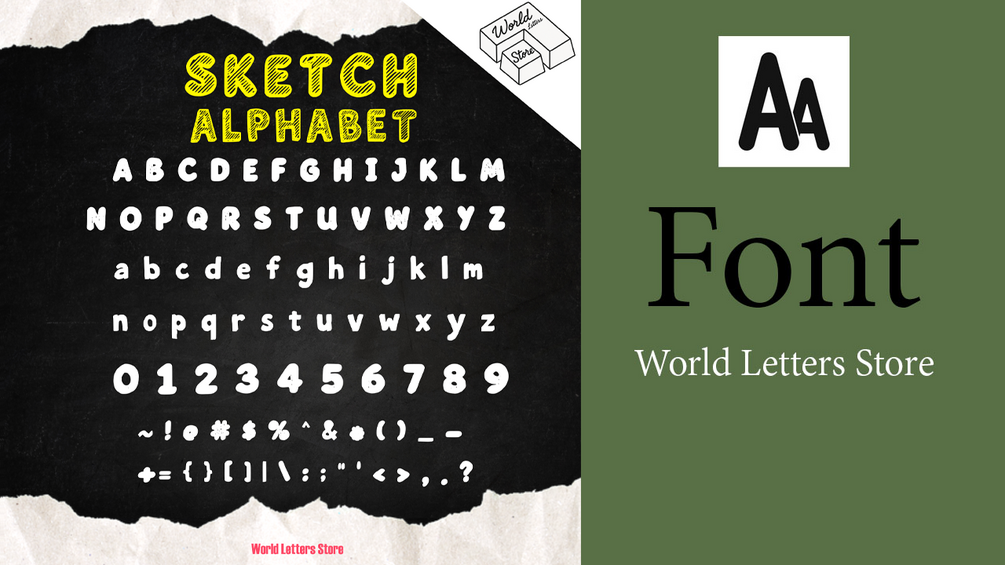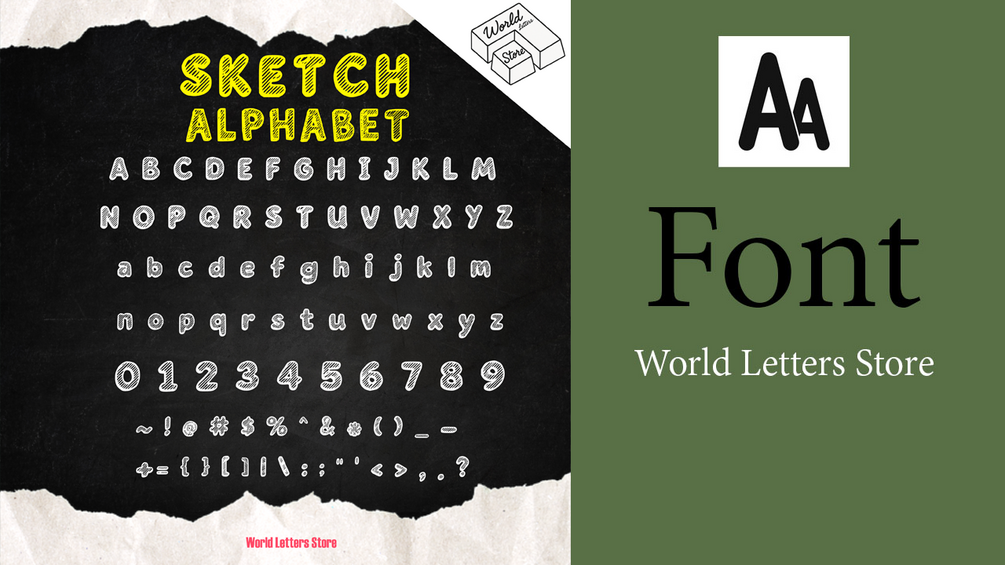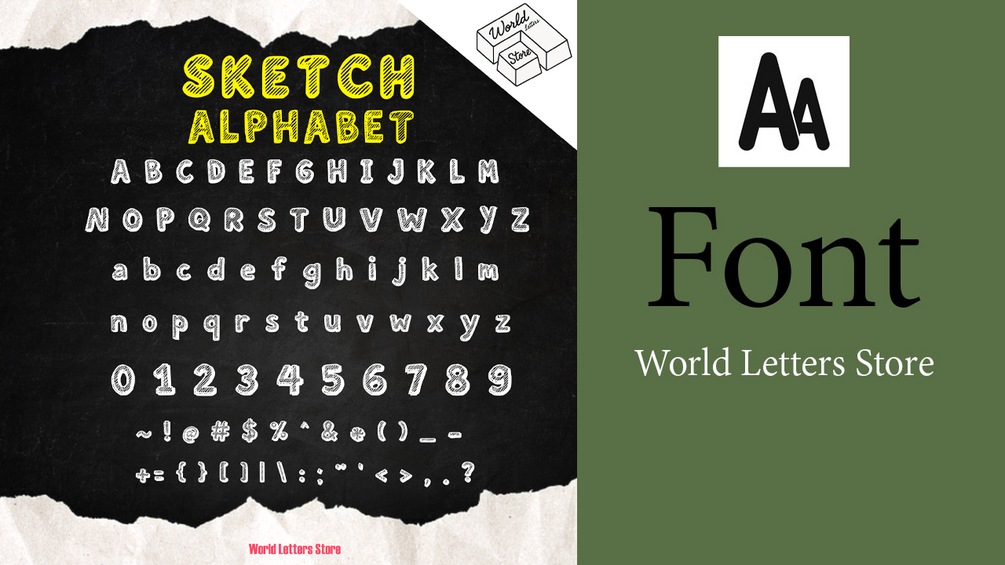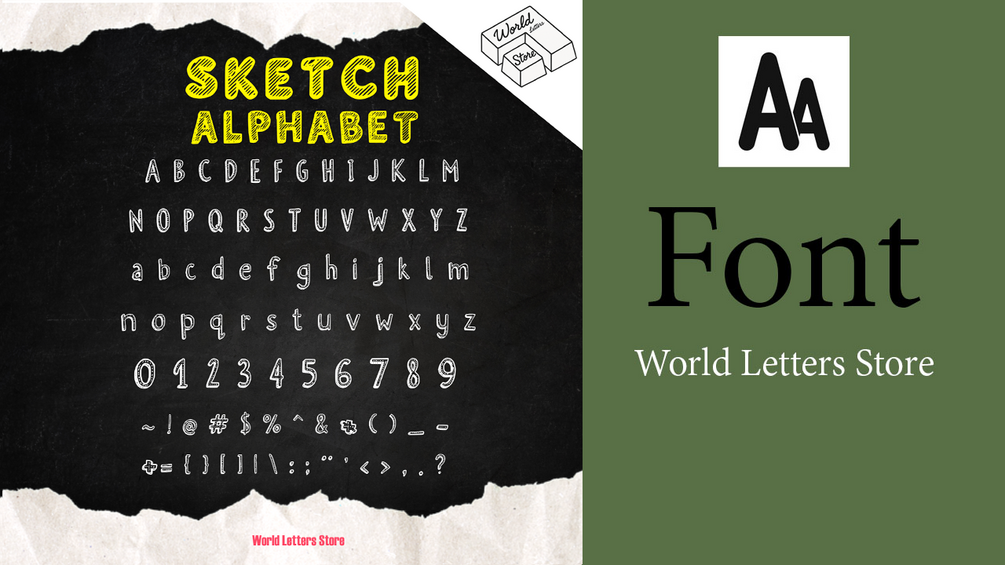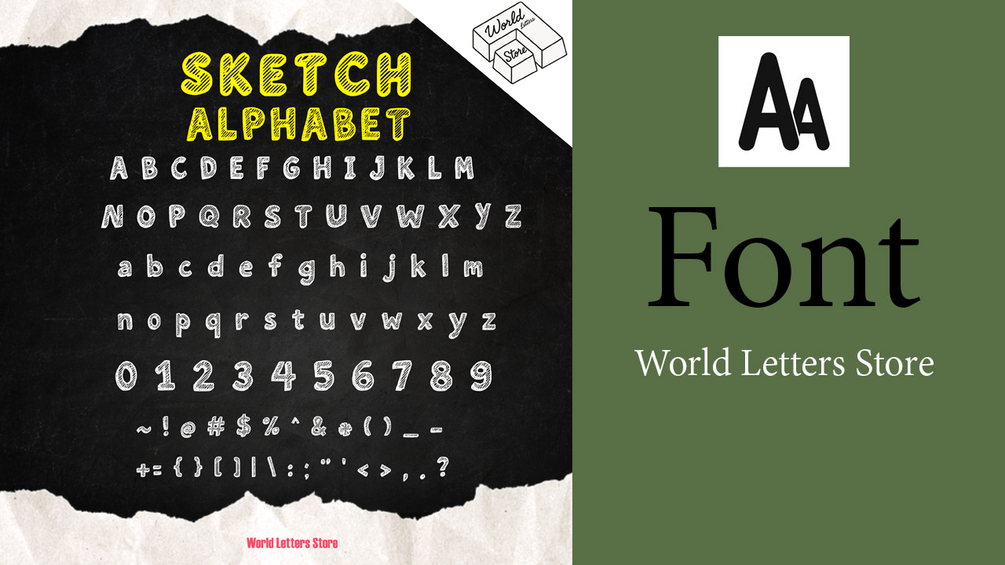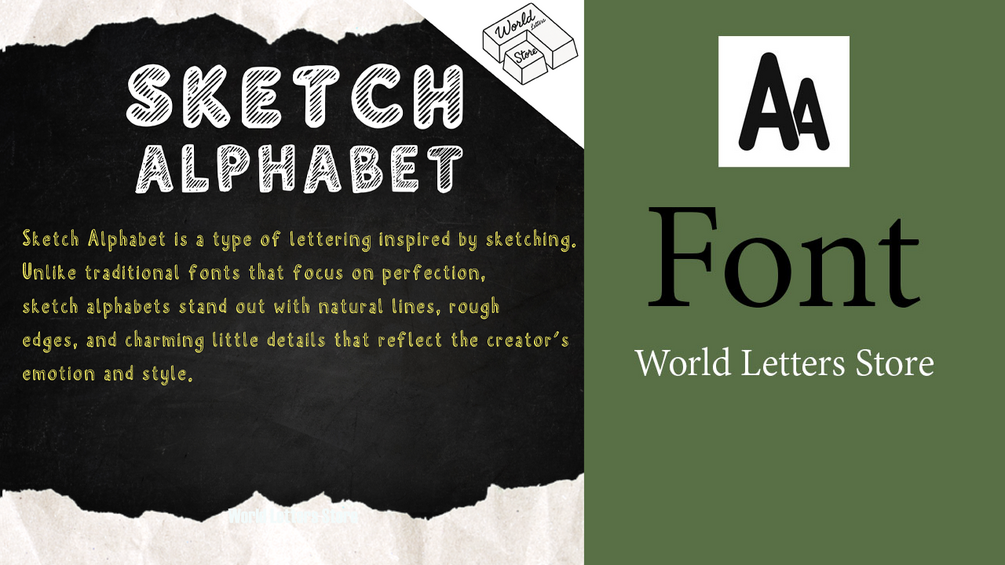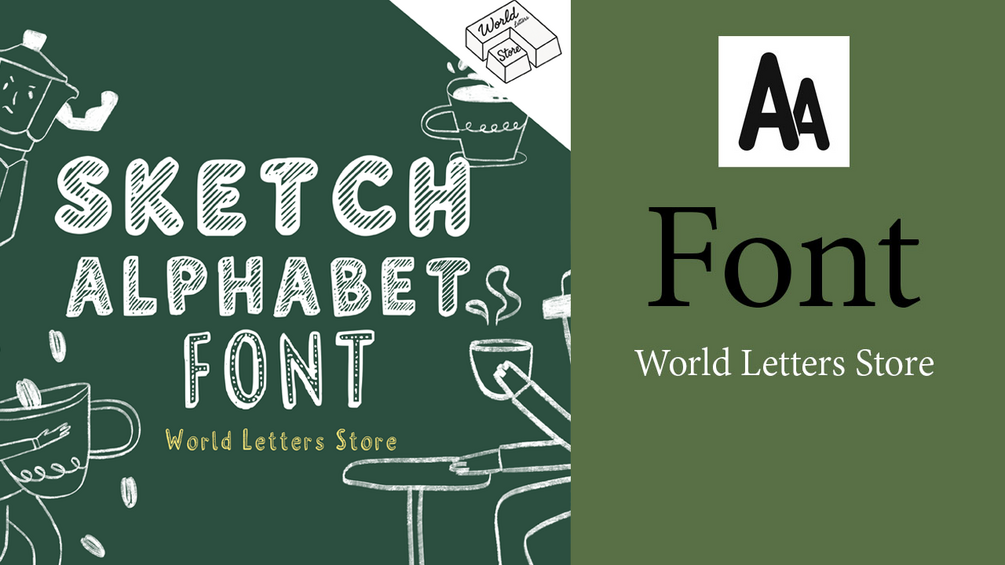
Sketch alphabet Font – Hand-Drawn Doodle Alphabet, Cute Sketchy Letters (OTF/TTF)
- 6 Sketch alphabet
Perfect for planners, logos, stickers, quotes, and digital products.